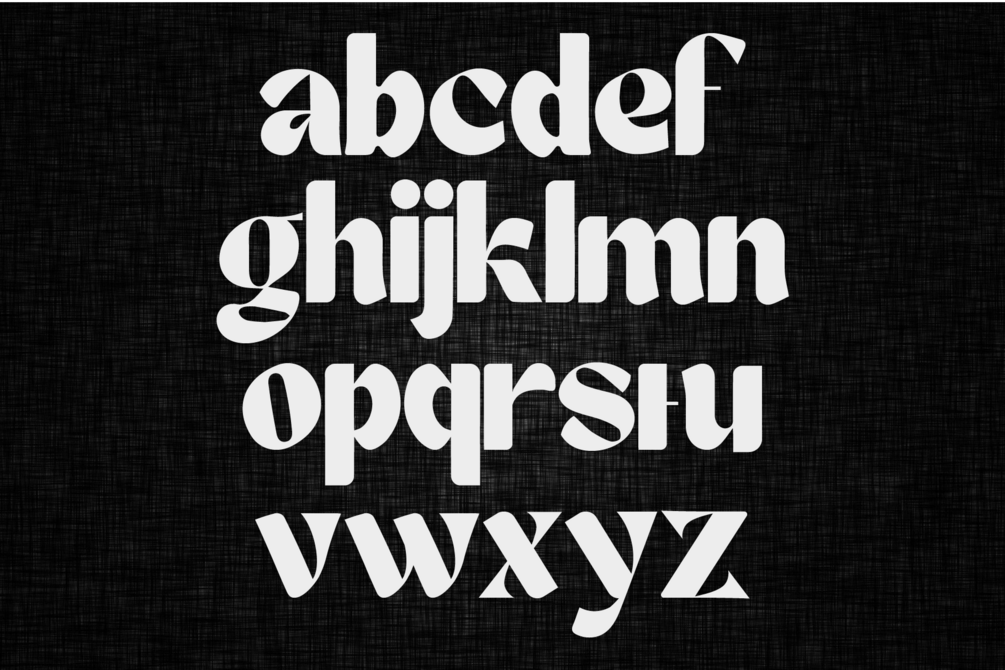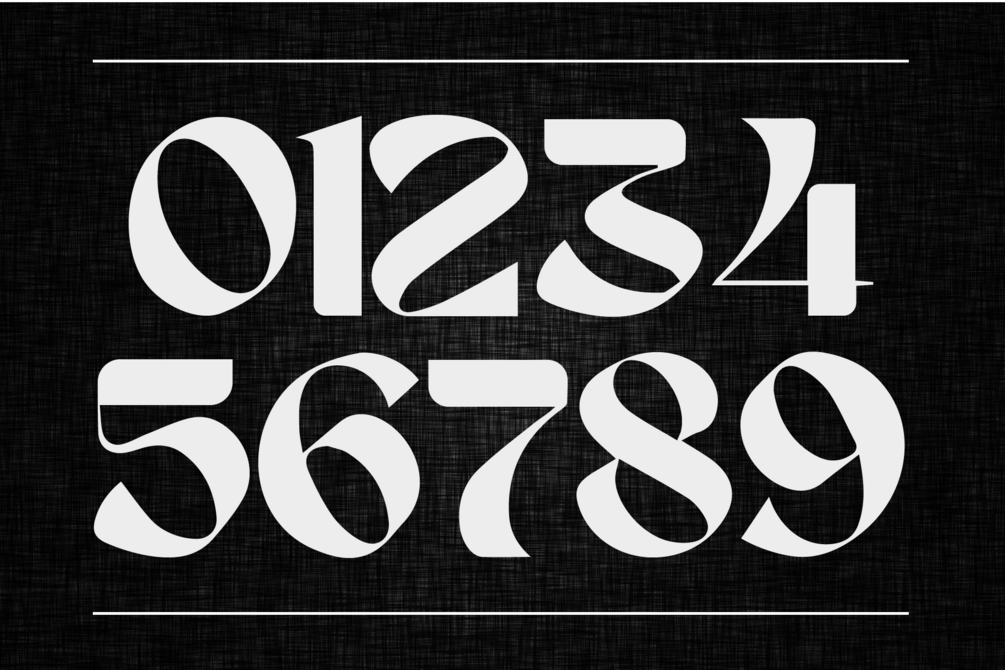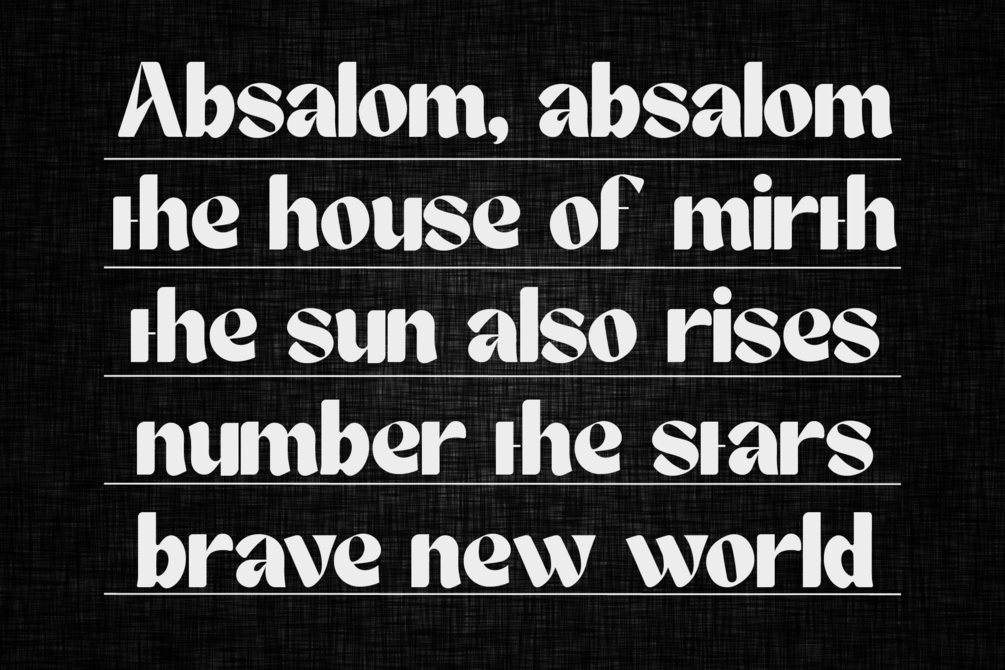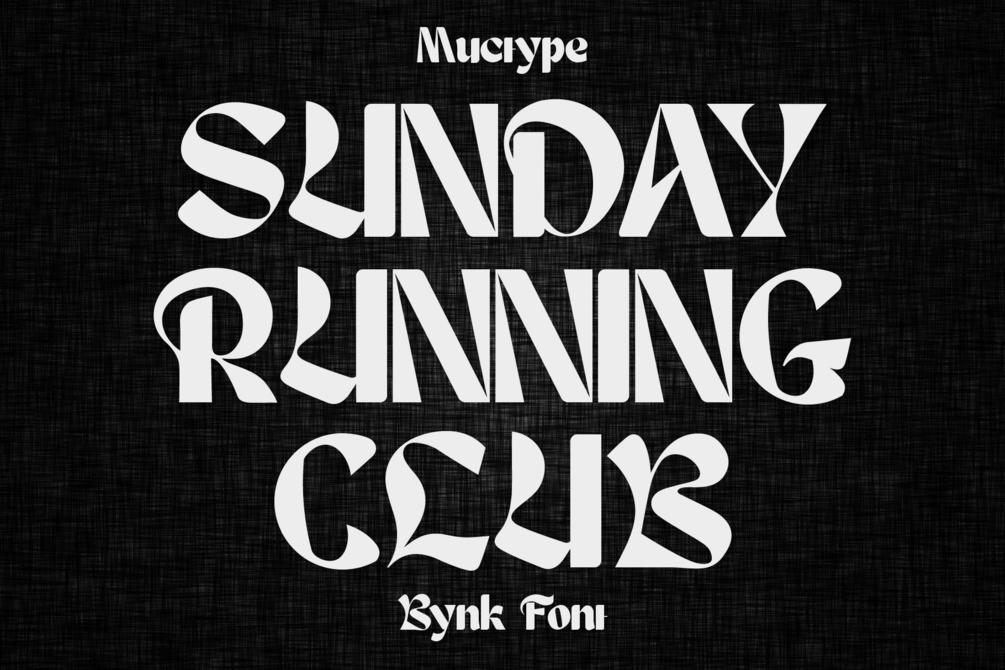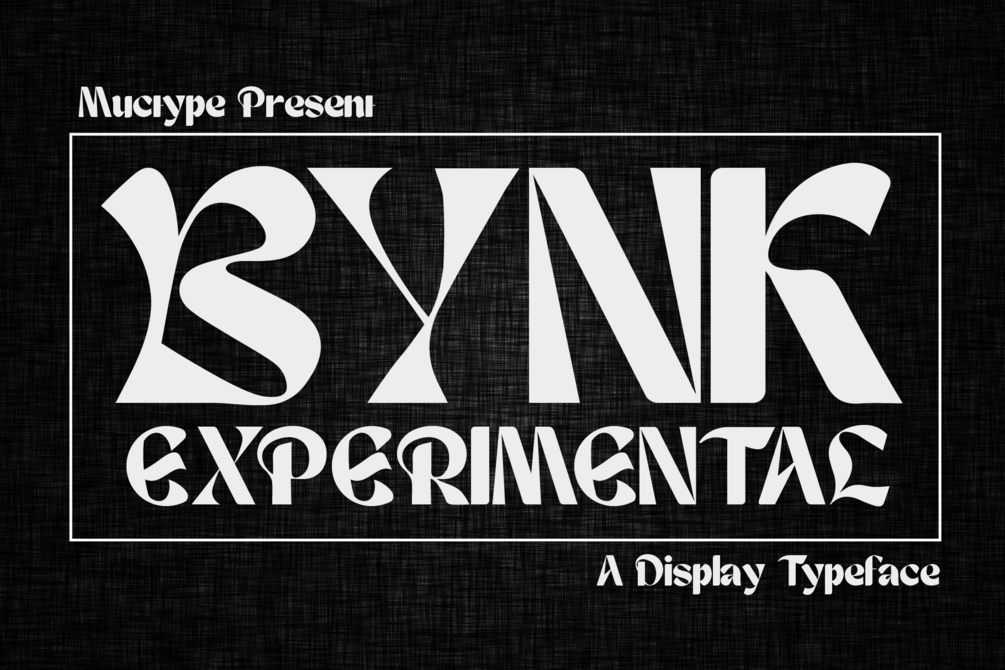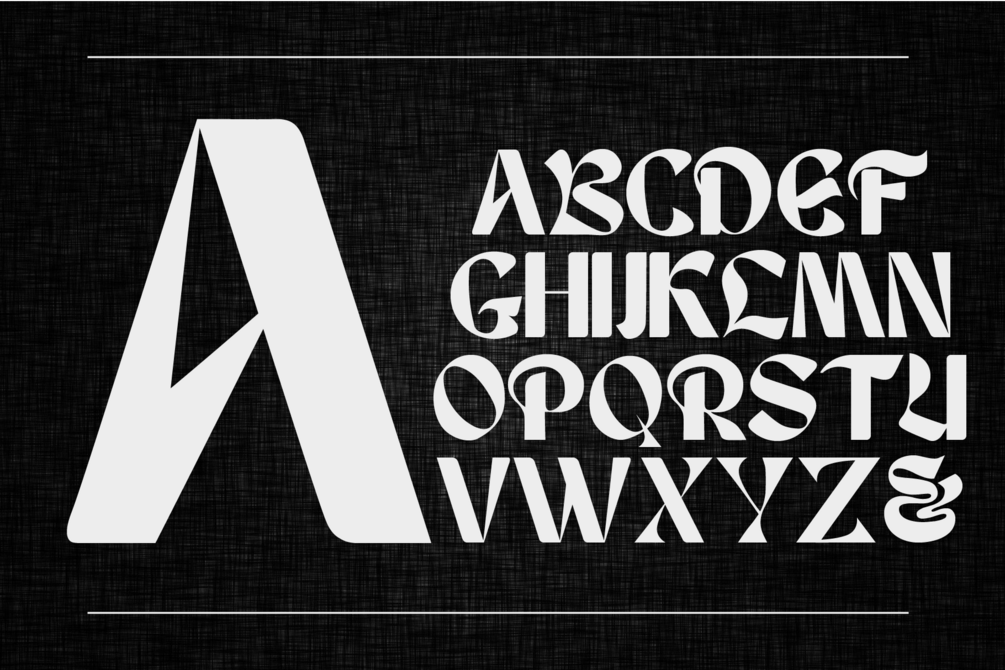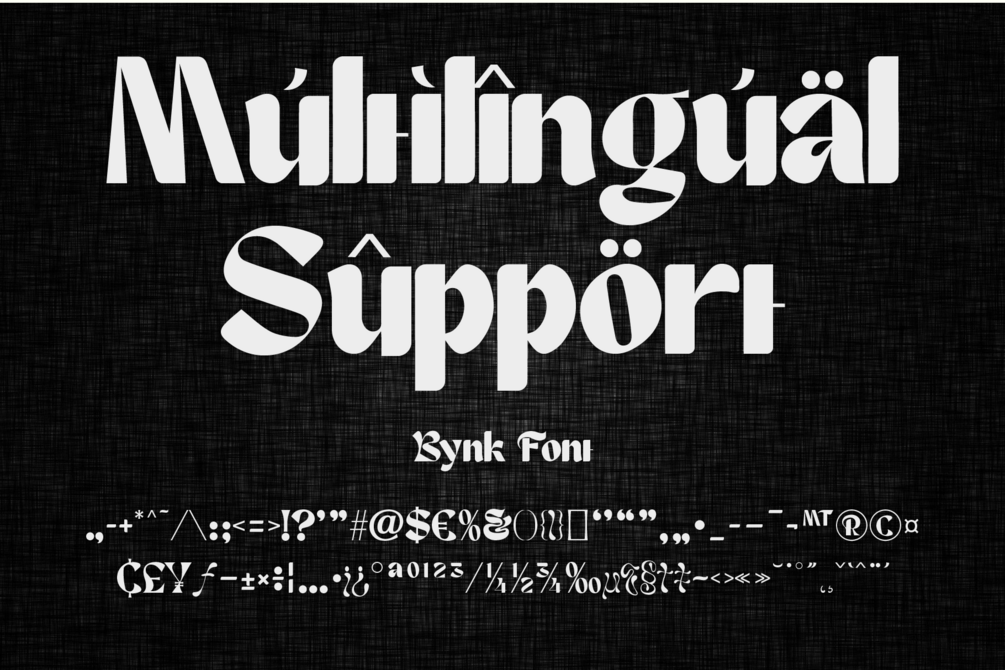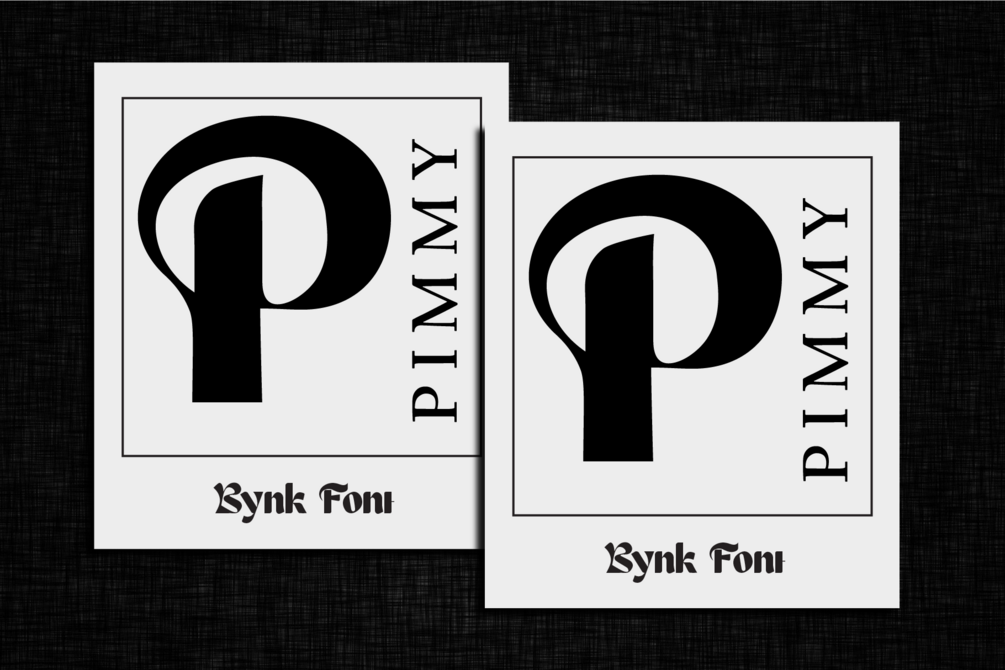
Bynk Experimental Font
Crios – Psychedelic Display Typeface by Muctype
Crios is a mind-bending psychedelic display typeface that dances between art and chaos. With its fluid curves, distorted forms, and hypnotic rhythm, this typeface evokes the spirit of 1960s counterculture and modern surrealism. Each letter feels like it’s alive—morphing, melting, and moving with every glance.
Perfect for experimental posters, music festival branding, retro-futuristic visuals, or any project that craves a touch of bold eccentricity, Pulsar doesn’t just speak—it sings in visual waves.
Let your typography trip with Bynk.
- Uppercase, Lowercase, Numerals & Punctuations
- Multilingual support